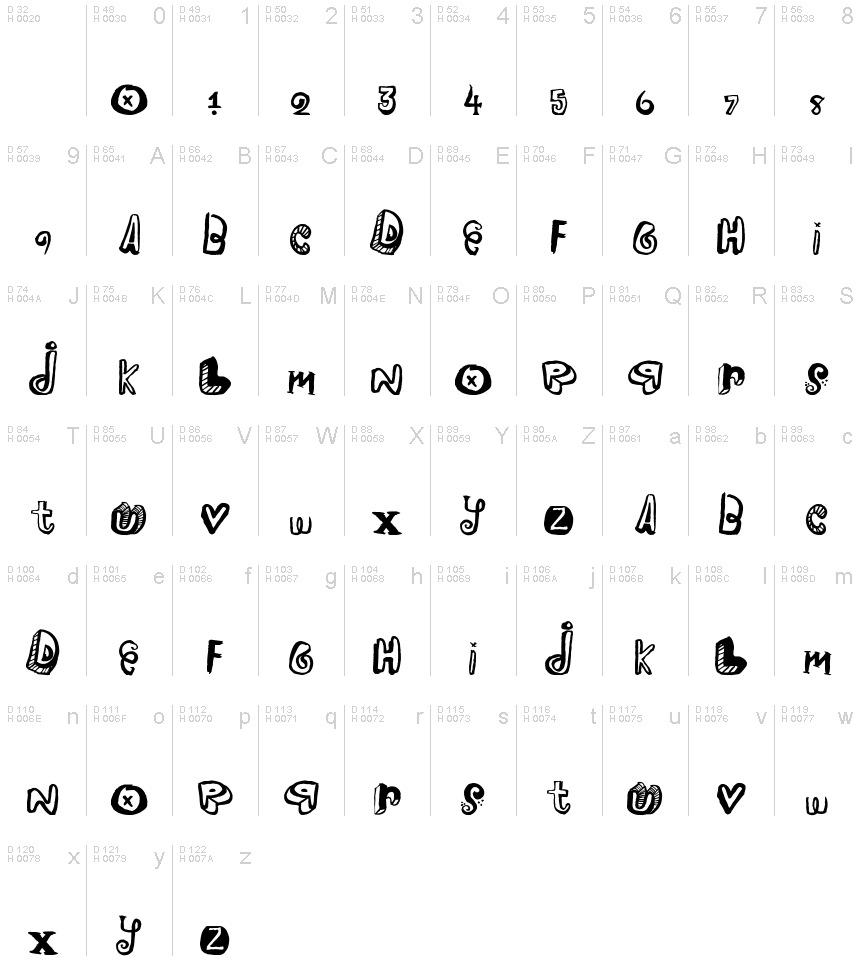
PleasureRiot
Pleasure Riot is a captivating display font that exudes a dynamic, cartoon-inspired aesthetic. Designed by Xerographer Fonts' Max Infeld, this playful typeface boasts an exaggerated, irregular outline that immediately catches the eye. Its bold, expressive letterforms convey a sense of energy and youthfulness, making it well-suited for a variety of design applications, from vibrant branding and packaging to eye-catching headlines and impactful advertising.
The font's distinct personality lends itself to creative projects that aim to capture a lighthearted, whimsical tone. Its versatility allows it to seamlessly transition between playful, fun-loving designs and more daring, edgy compositions, making it a versatile tool for designers seeking to add a touch of personality and flair to their work.